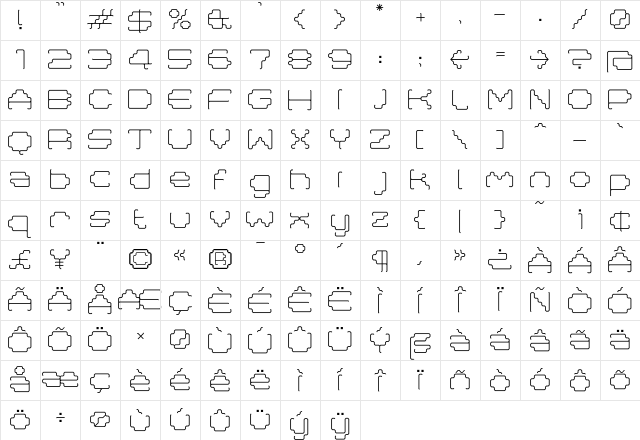
Masta Light Free Font
Masta Light
Foundry: he Identikal Foundry. t of the Identikal Corporation
Design Context for Masta
Masta is a composed and adaptable typeface that performs quietly and consistently across a wide range of design contexts. Its slender proportions lend an understated elegance to any composition.
Who designed the Masta Light font?
This font was published by he Identikal Foundry. t of the Identikal Corporation. Check the technical specs section for copyright and designer details.